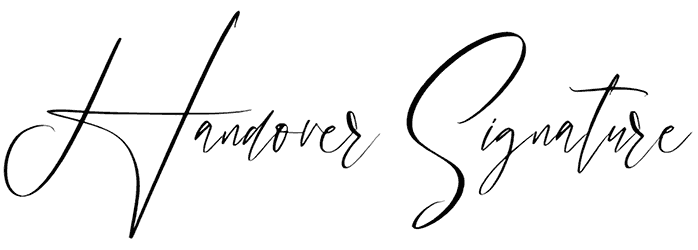
Handover Signature Font
Handover Signature is a breathtaking script font that comes with a soft texture and sophisticated flow that dances along the baseline, so this signature font has the real potential to bring a feeling of delicacy, precision, personalization, or professionalism to any kind of graphic content ranging from book covers, social media posts, and business cards, to branding projects.
Due to its cursive style, reading some of its letters would be a little challenging, but it won’t be a serious problem.